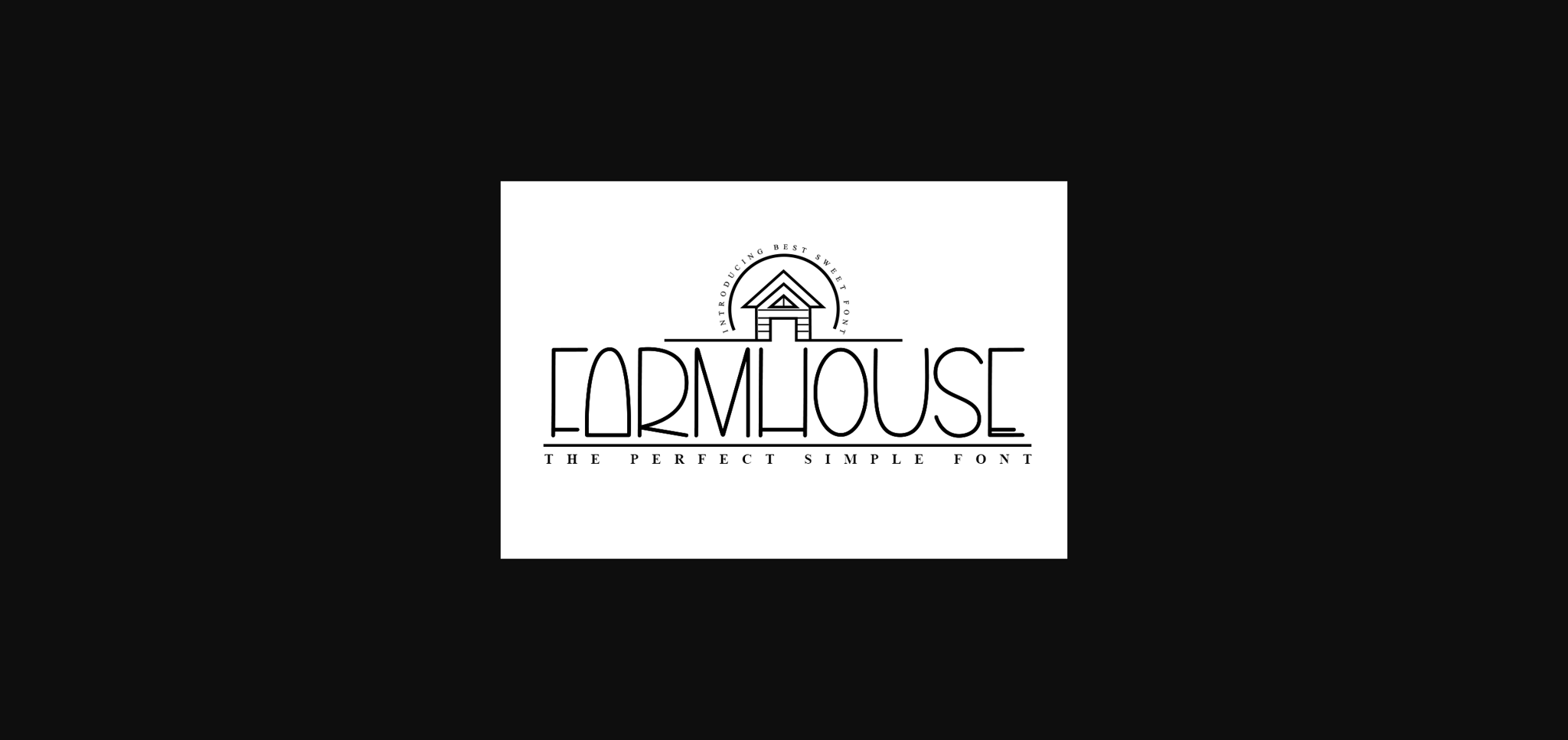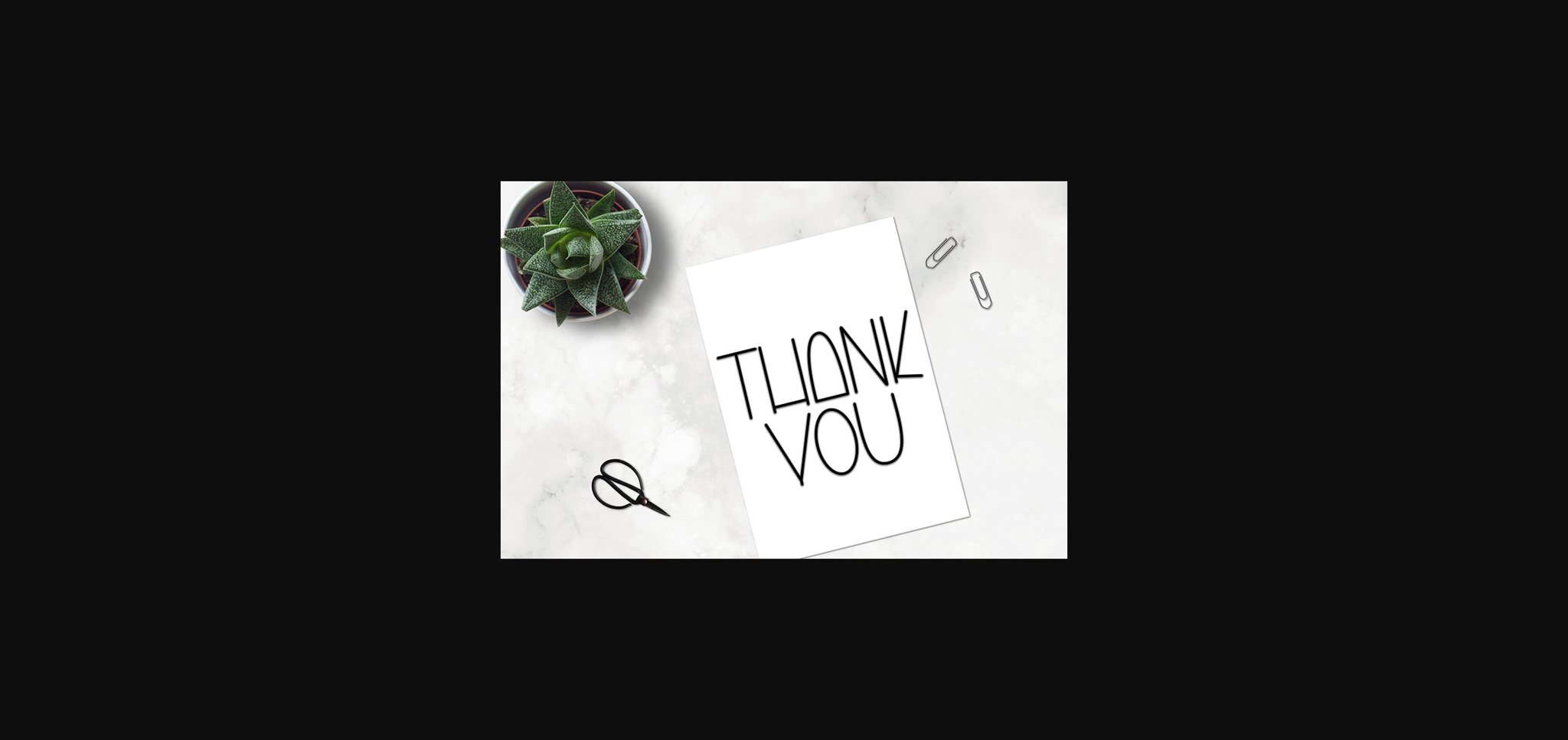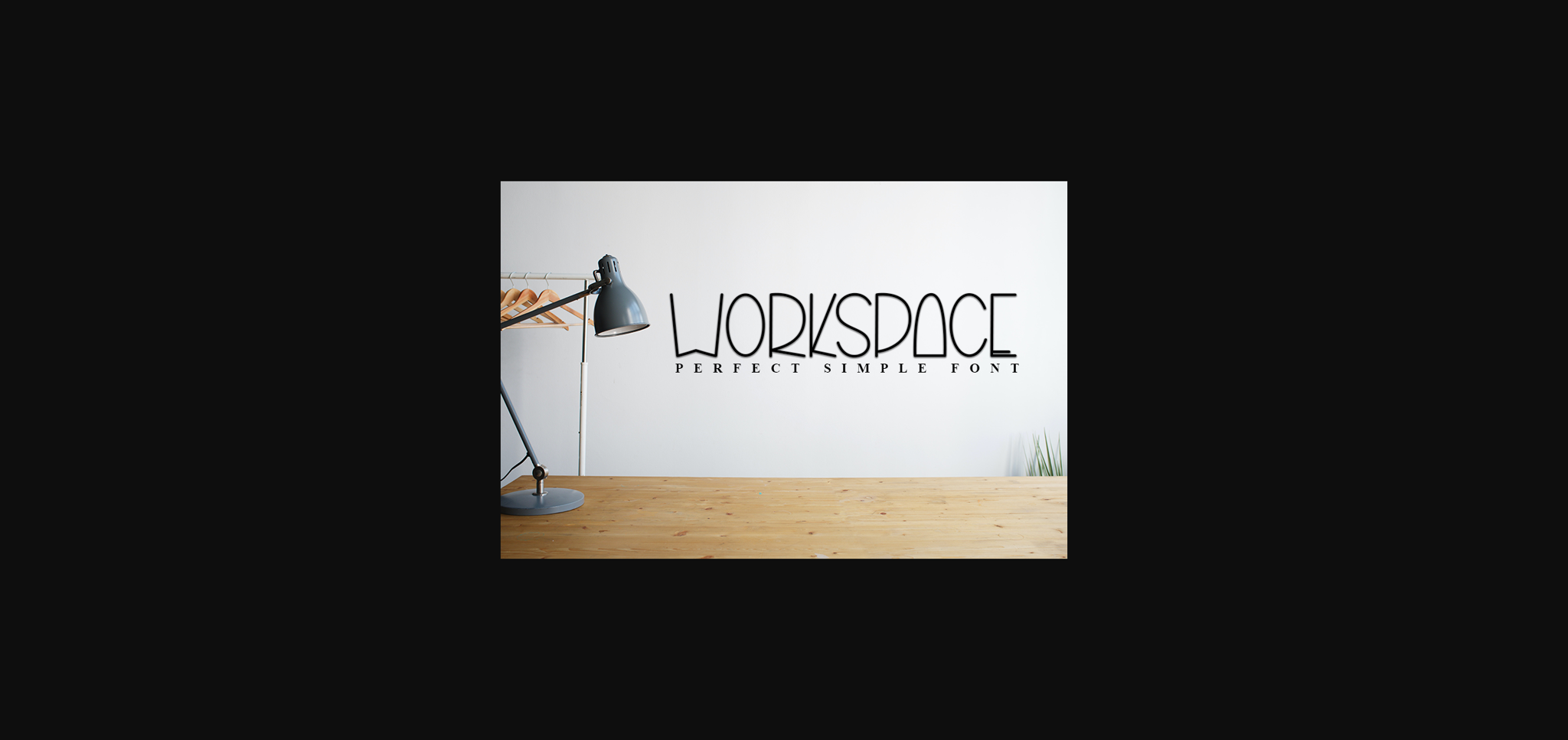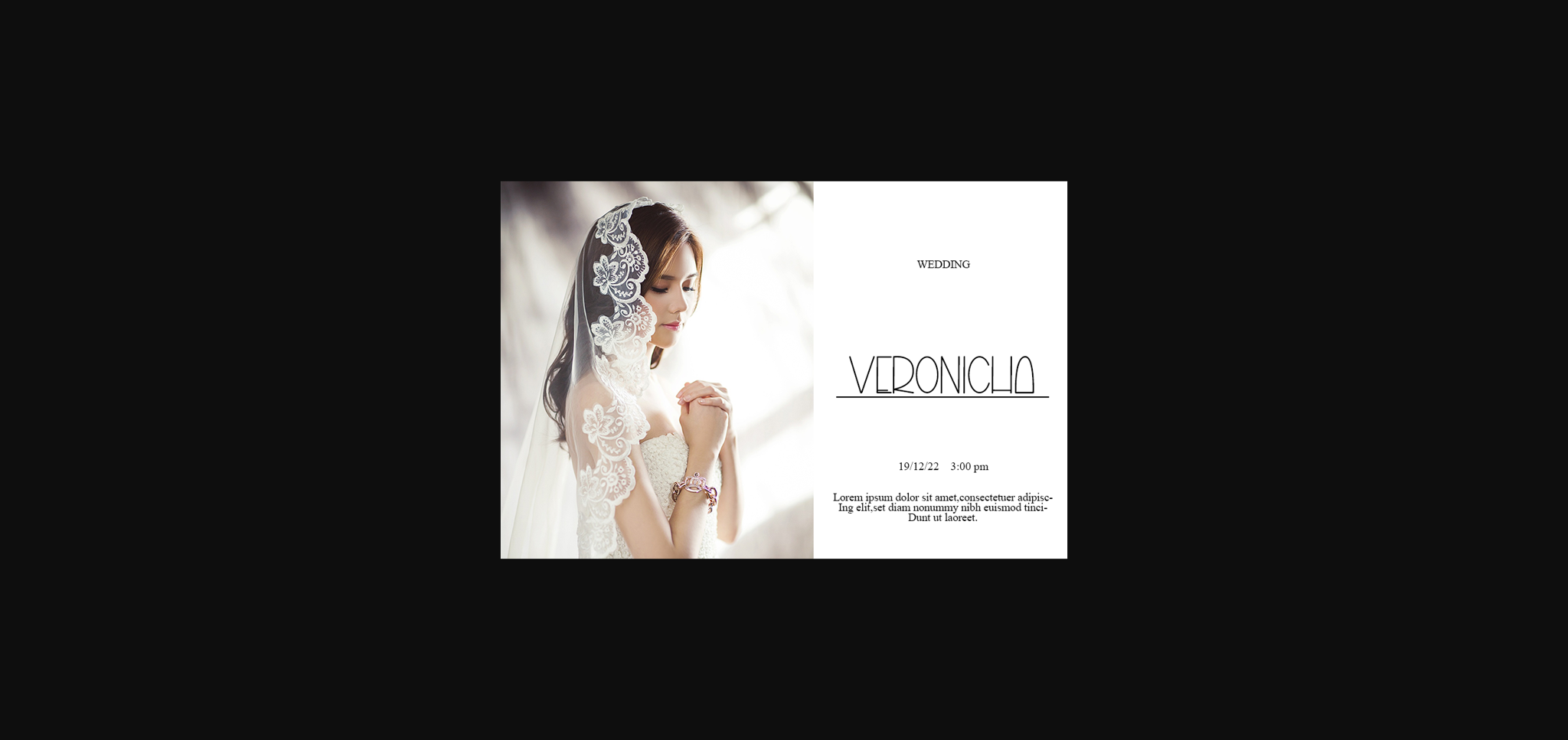
About Farmhouse Font
Farmhouse is a cool and modern handwritten font. Whether you’re using it for crafts, digital design, presentations, or making greeting cards, this font has the potential to become your favorite go-to font, no matter the occasion.